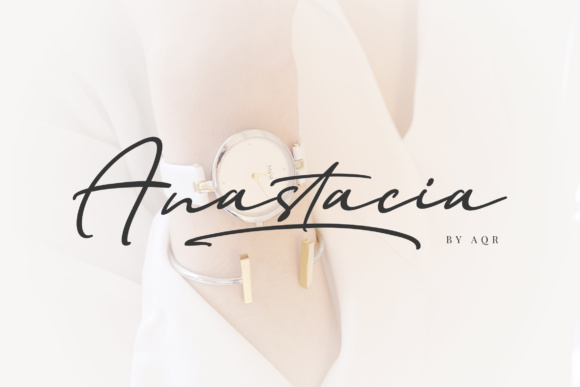
The Anastacia Font: Elevate Your Designs with Elegance and Flair
Have you ever been in the middle of a design project, and suddenly, you’re struck by a creative roadblock? You’re not alone! I recall a particularly frustrating experience while working on a branding project for a boutique client. I needed a font that exuded sophistication, yet had a playful, carefree vibe. That’s when I stumbled upon the stunning Anastacia font. In this article, we’ll dive into the world of Anastacia, exploring its unique features, and how to make the most of this gorgeous signature font.
As a designer, I’m always on the lookout for fonts that can elevate my work. Here’s what I love about Anastacia:
- ✨ Elegant yet casual: Anastacia strikes the perfect balance between refinement and playfulness, making it ideal for projects that require a touch of sophistication.
- ✅ Highly versatile: This font shines in various design applications, from print materials to digital projects.
- 💫 Unique character: Anastacia’s distinctive style ensures your designs stand out from the crowd.
While Anastacia is an exceptional font, there are a few minor quirks to consider:
- 🤔 Limited use in body text: Due to its elegant, cursive nature, Anastacia might not be the best choice for lengthy body text. Instead, opt for it as a headline or accent font.
- ⚠️ Requires attention to spacing: As with any script font, be mindful of letter spacing to ensure optimal readability.
The Story Behind Anastacia: Designer Inspiration
While the actual designer of Anastacia remains a mystery, it’s clear that this font was crafted with love and attention to detail. Imagine a designer, sipping coffee in a quaint café, brainstorming ideas for a font that would capture the essence of effortless elegance. With Anastacia, they’ve succeeded in creating a font that’s both refined and carefree.
| What type of projects is Anastacia best suited for? | Anastacia excels in projects that require a touch of elegance and sophistication, such as branding, packaging, and print materials. |
| Can I use Anastacia for body text? | While possible, Anastacia is better suited as a headline or accent font due to its elegant, cursive nature. |
| Is Anastacia available in different weights or styles? | Depending on the font version, Anastacia might be available in various weights or styles, including italic or bold. |